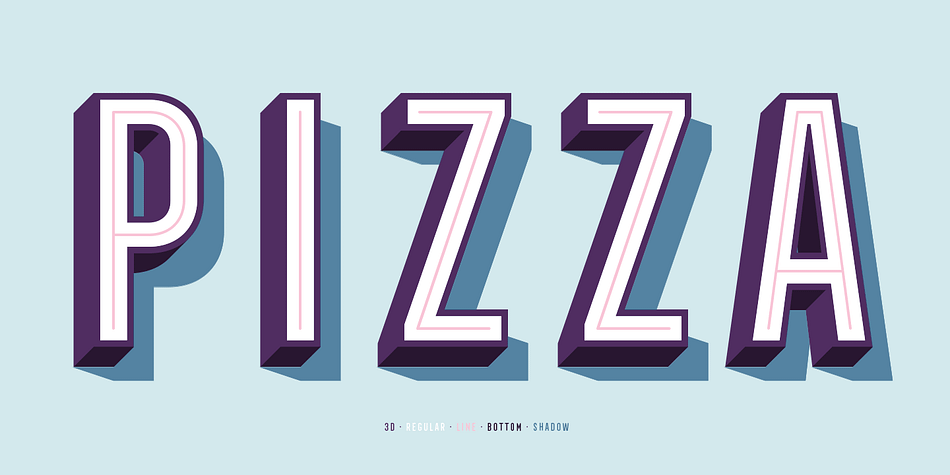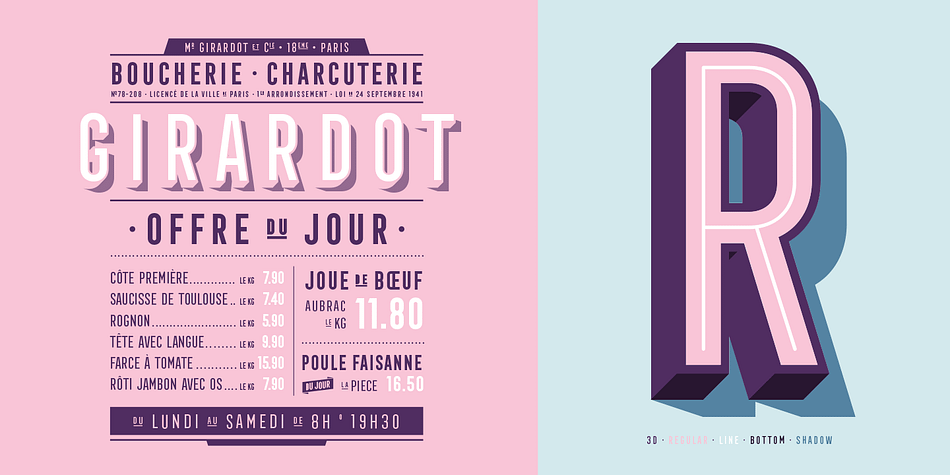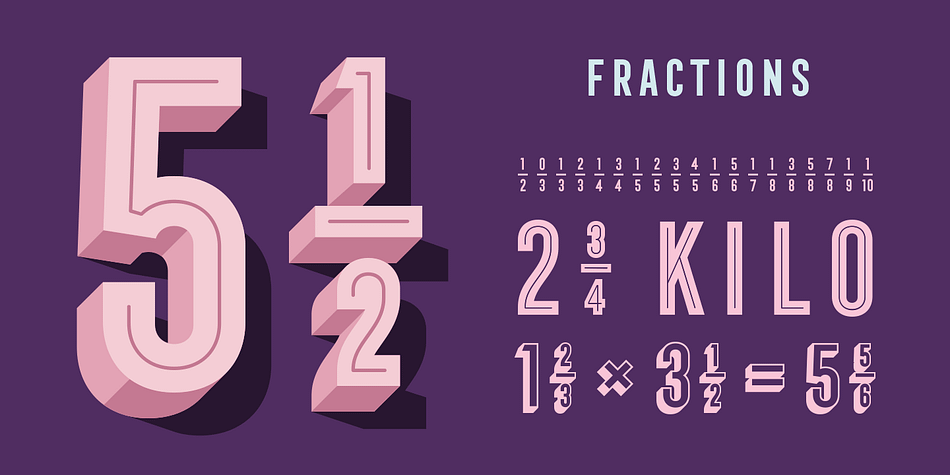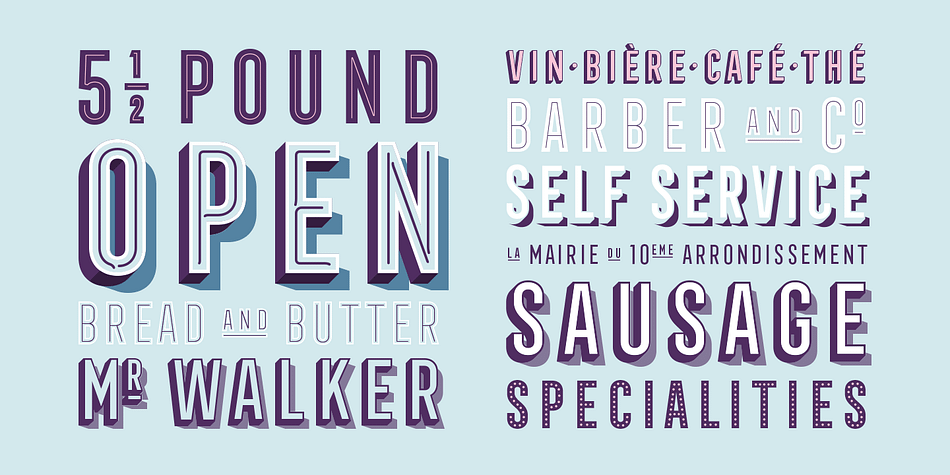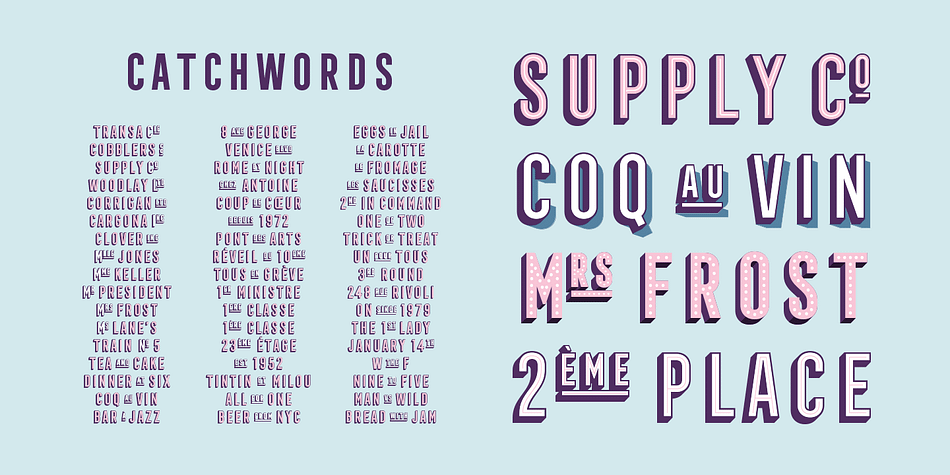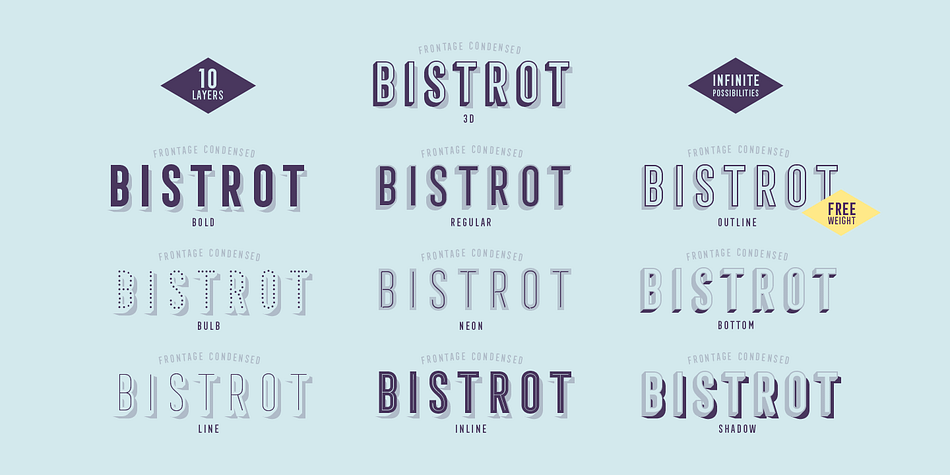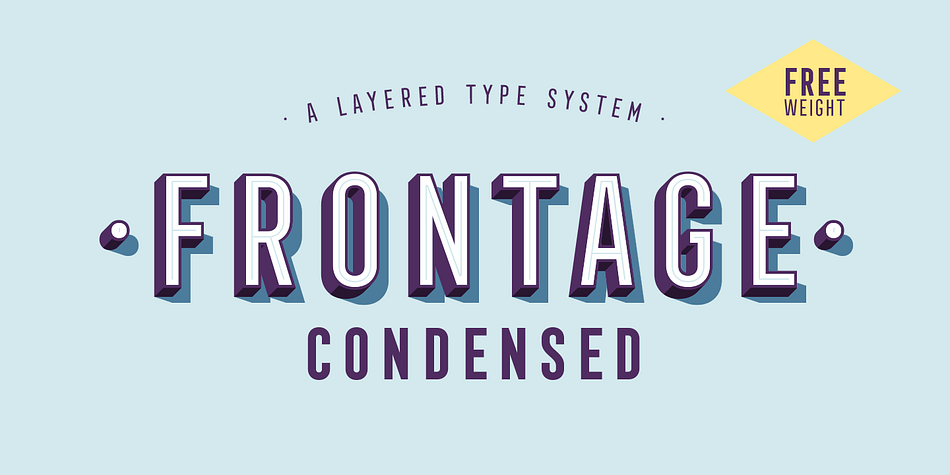
Designed by Juri Zaech, Frontage Condensed is a display sans font family. This typeface has ten styles and was published by Juri Zaech.
Frontage Condensed is a layered type system inspired by eye-catching and colorful facade signage. Its main aspect is — like many typographic installations on storefronts — three dimensional. The narrow, generously spaced letterforms lend the typeface a bold and eminent voice. The more ornamental layers like Bulb or Neon bring nostalgia to the family, while the Shadow layer maximizes the spacial impression. The system’s ten layers can be used alone or combined making the family a versatile toolkit. The use of color reveals Frontage Condensed’s full potential, yet for stark applications it works great in black and white too. Check the specimen PDF for examples.
Frontage Condensed features 52 catchwords. They can be simply activated through OpenType’s Discretionary Ligatures and are an easy way to enrich the typographic texture. Other features include fractions, numerators and denominators. Frontage Condensed’s 339-character set covers over 190 latin languages.